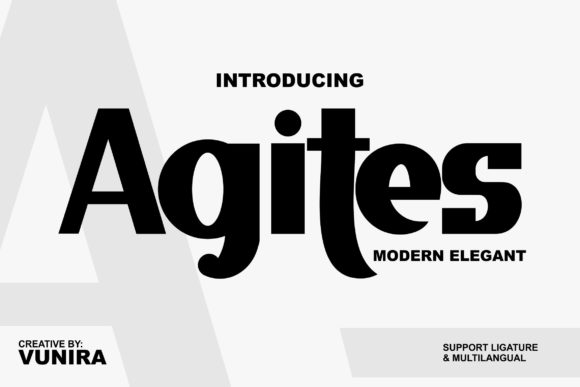
The Agites Font: A Bold yet Sophisticated Design Essential
I still remember the design project that led me to discover the Agites font. I was working on a branding campaign for a new coffee shop, and I needed a font that would convey a sense of boldness and sophistication. After hours of searching, I stumbled upon Agites, and it instantly became my go-to choice. The chunky and extended characters seemed tailor-made for logos, branding, and packaging design. In this article, I’ll share my experience with Agites, its features, and how to make the most of this masterfully designed display font.
An Honest Review of Agites Font
What I Love About Agites ✨
- ✅ Unique character design: Agites boasts chunky and extended characters that add a touch of sophistication to any design project.
- ✅ Versatility: This font is perfect for logos, branding, packaging design, and more.
- ✅ Easy to read: Despite its bold design, Agites remains surprisingly legible, even at smaller font sizes.
- ✅ High-quality: The font is well-crafted, with attention to detail and a clear focus on aesthetics.
- ⚠️ Limited use cases: Agites is a display font, which means it’s best suited for headlines and titles rather than body text.
- ⚠️ Glyph limitations: While Agites features a range of glyphs, it may not have every special character you need.
The Backstory of Agites Font
Agites was designed with the goal of creating a bold yet sophisticated font that would excel in display settings. The designer aimed to craft a font that would be both eye-catching and elegant, making it perfect for logos, branding, and packaging design. While the designer’s inspiration is not well-documented, it’s clear that Agites was created with the intention of helping designers like you create stunning visual effects.
| What is Agites font best used for? | Agites is best used for logos, branding, packaging design, and other display purposes. |
| Does Agites support OpenType features? | Yes, Agites features OpenType support, including stylistic alternates, glyphs, and more. |